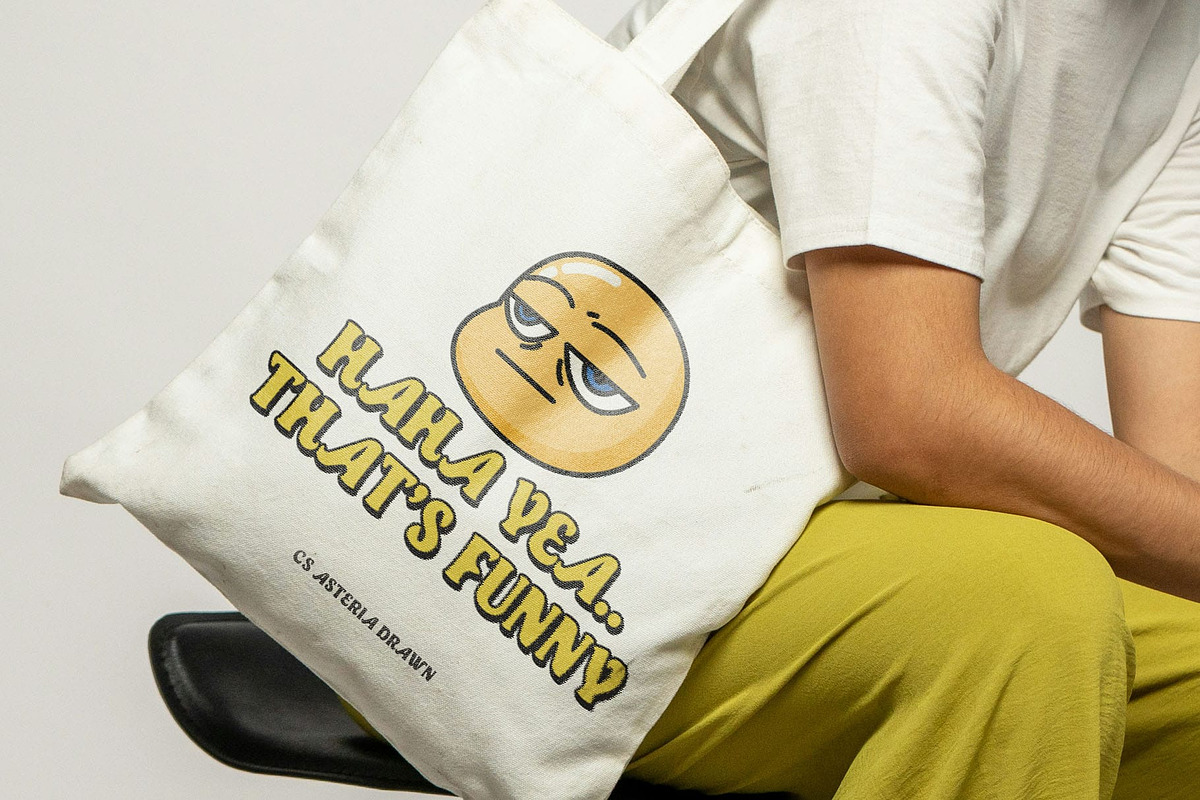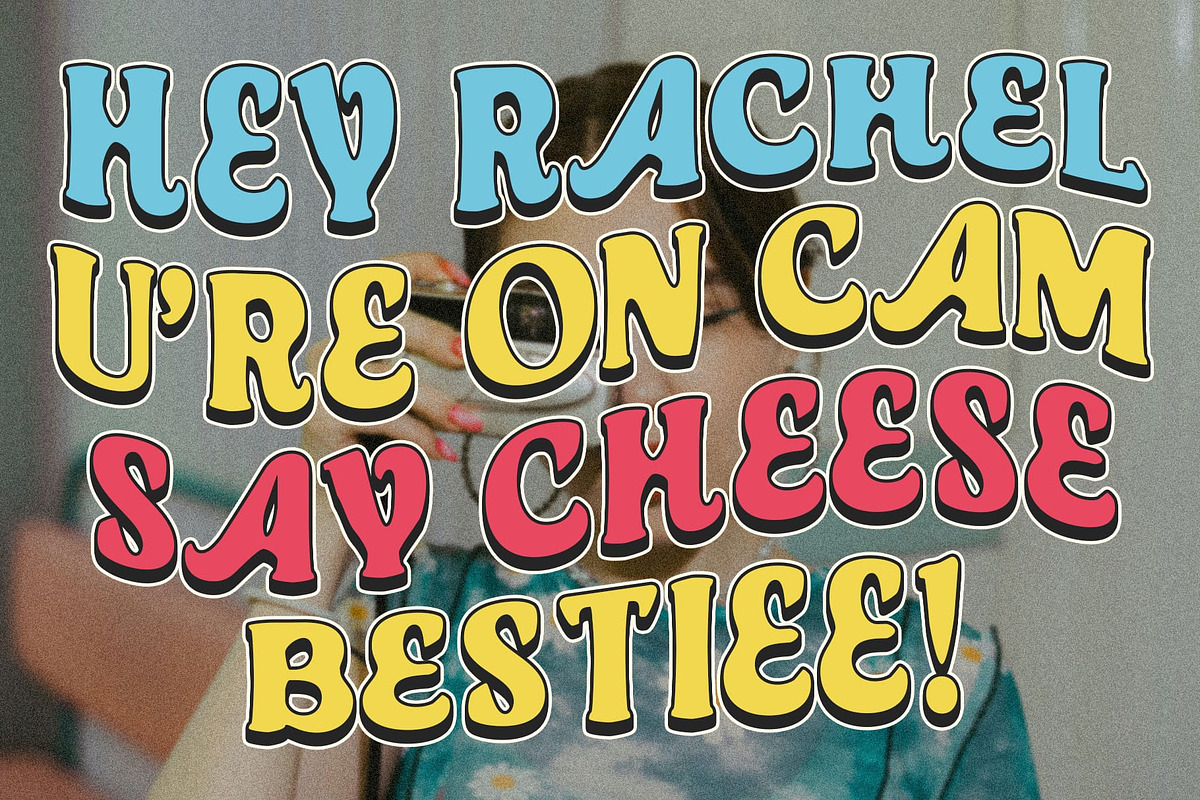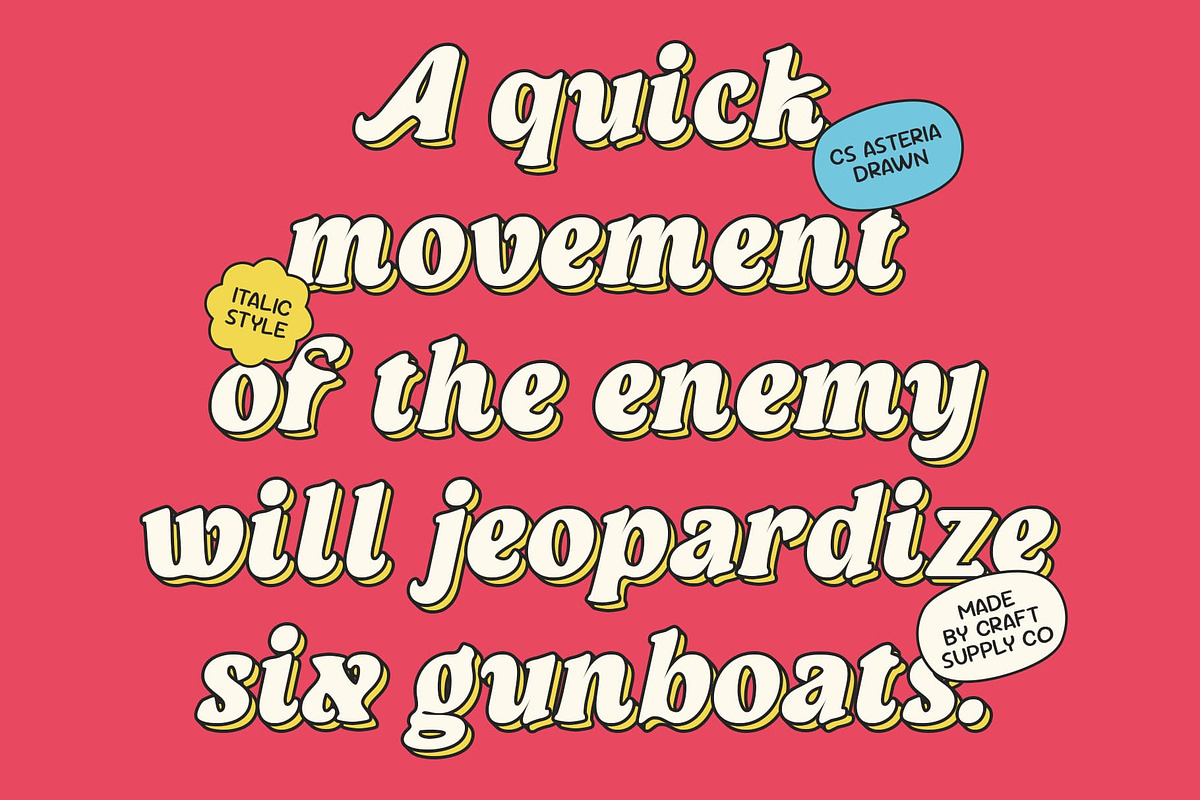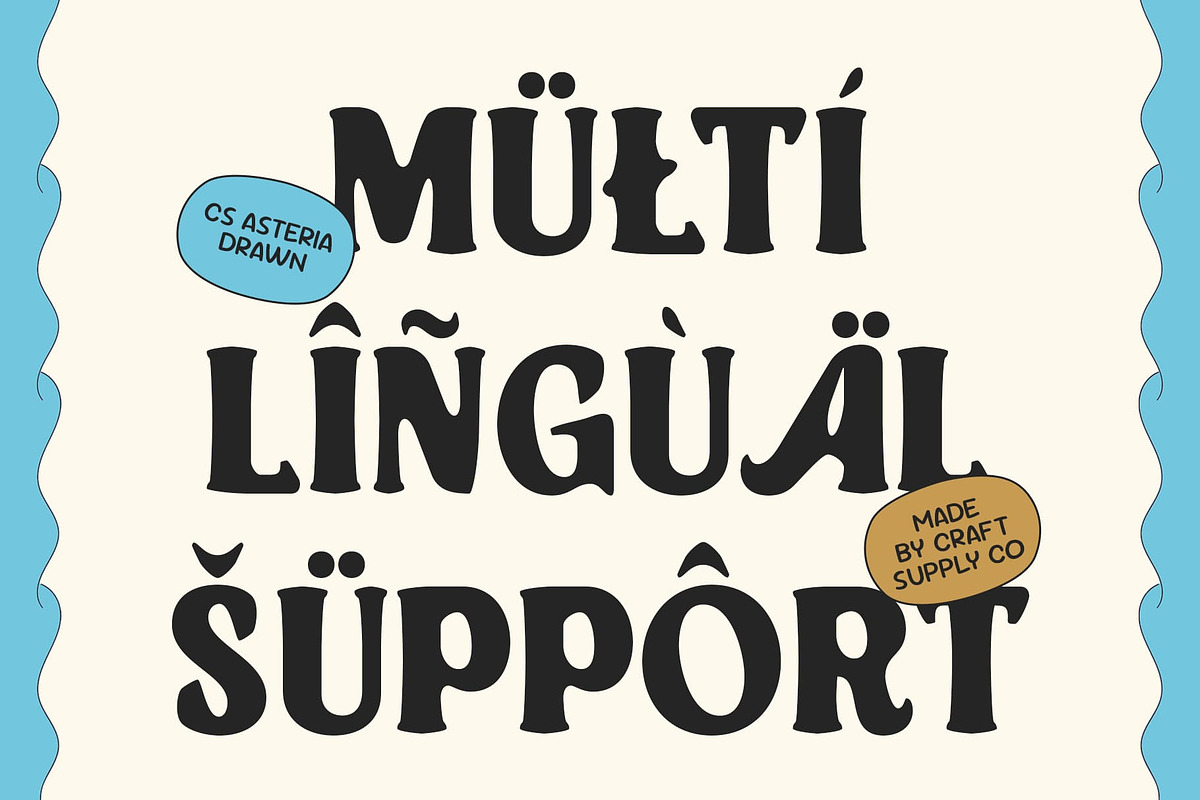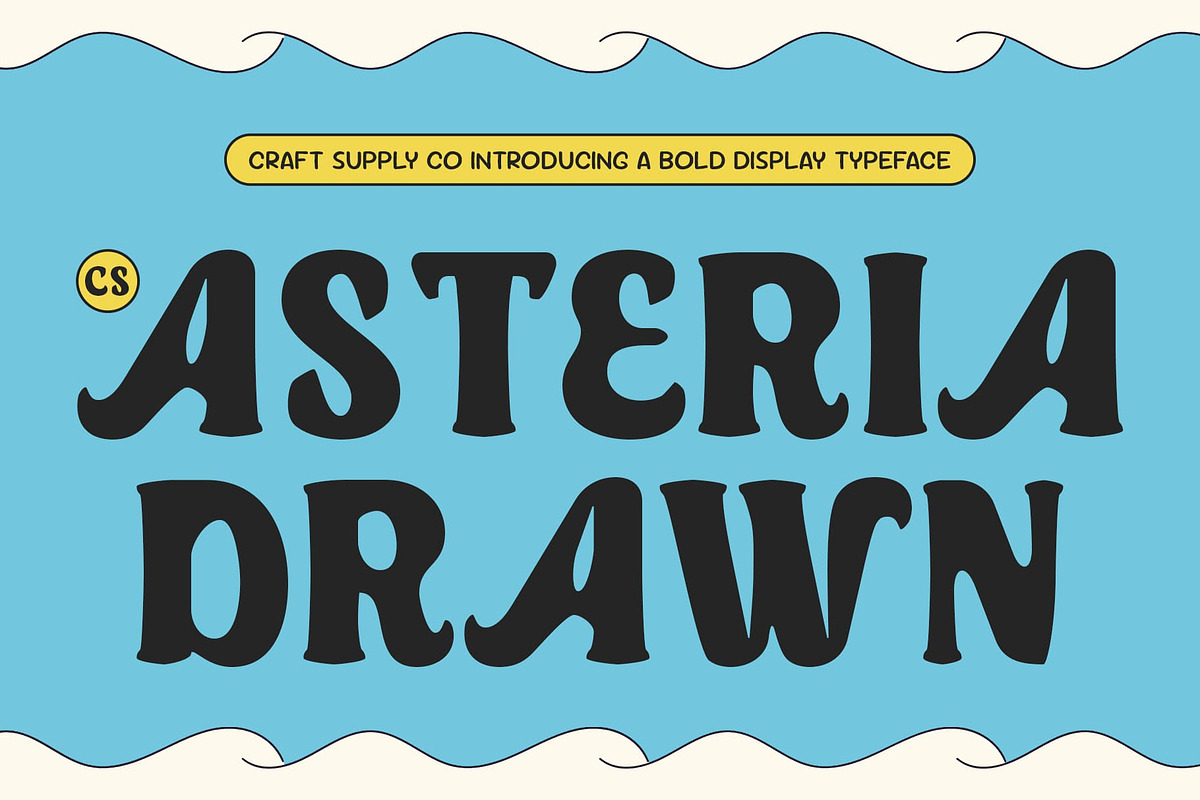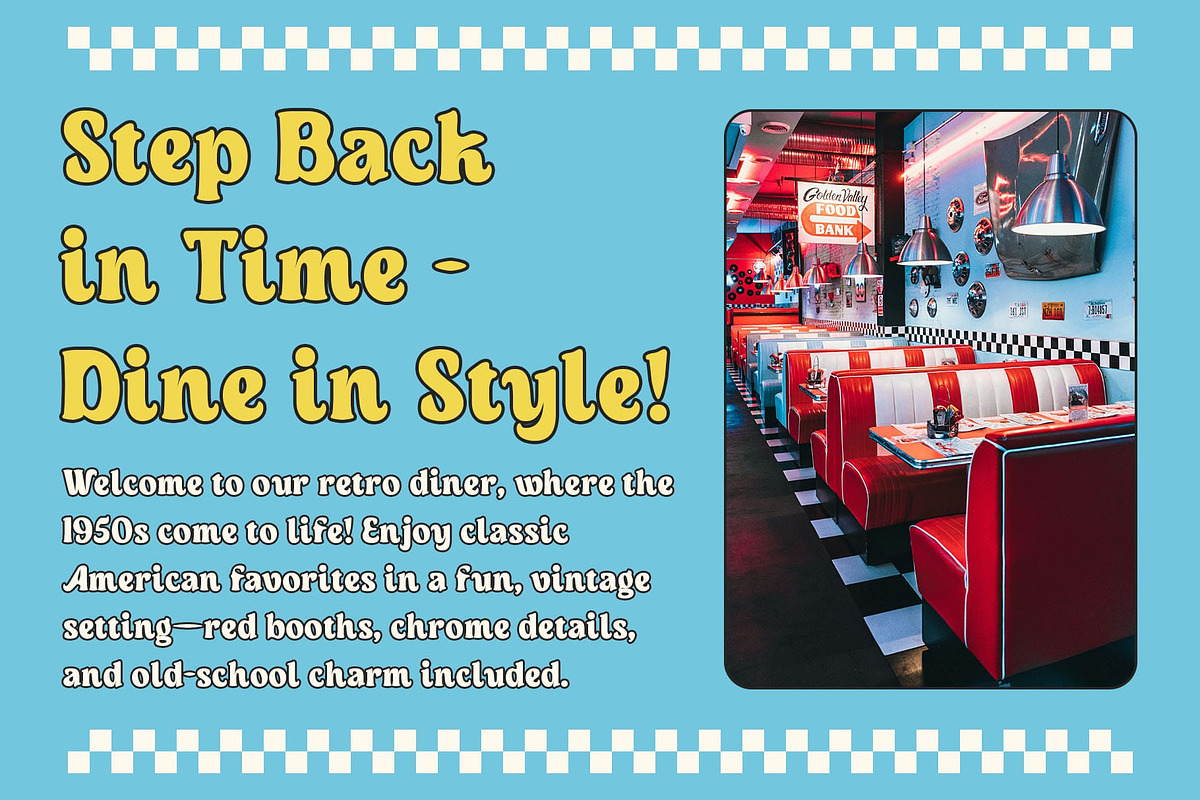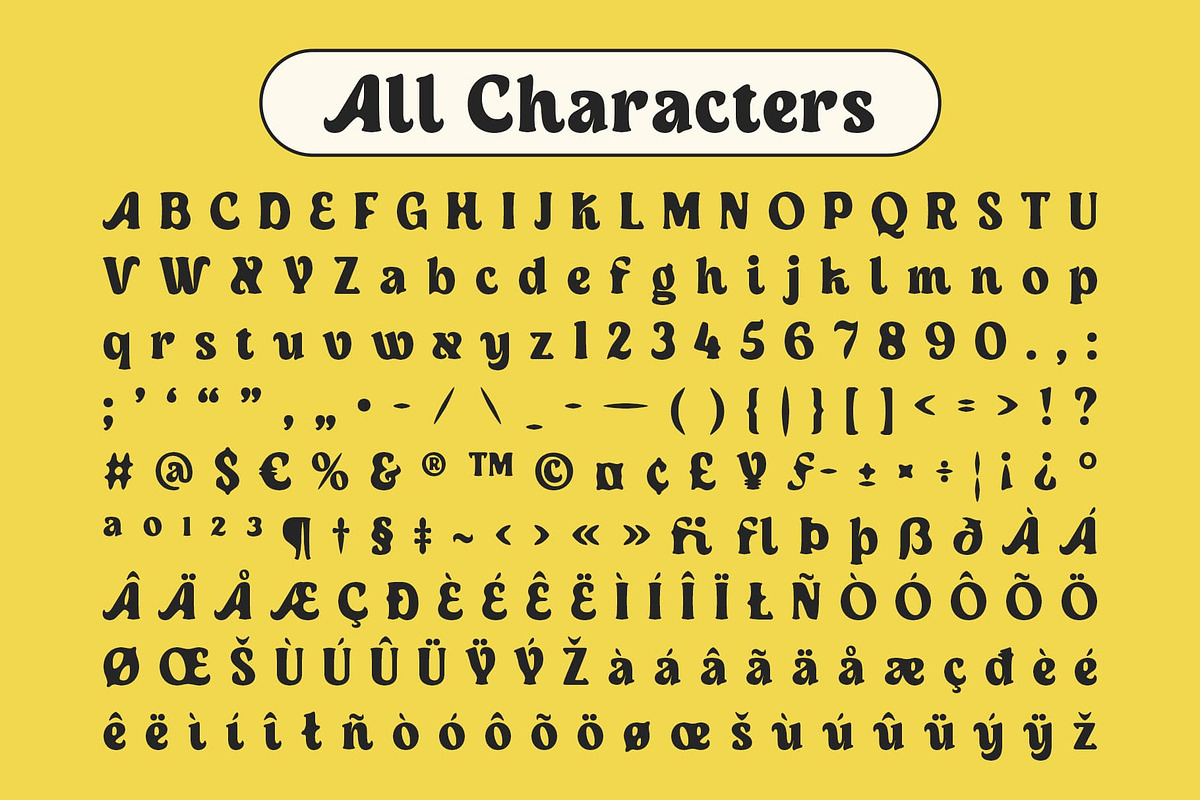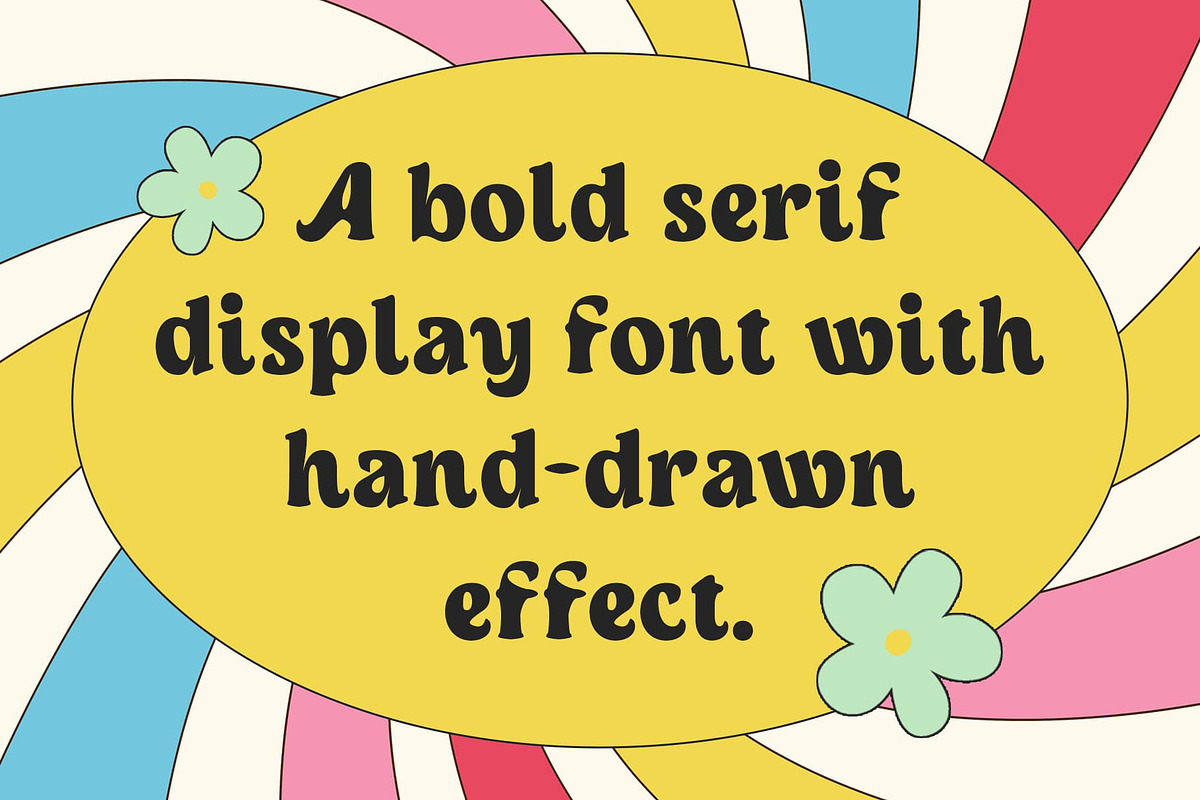
CS Asteria Drawn
CS Asteria Drawn – Bold Serif with Retro Funk
Bold Structure with Classic Elegance This features a bold display serif structure that carries the timeless elegance of classic typography. Its strong letterforms are designed to convey confidence and sophistication, offering a solid foundation for standout visual communication.
Funky Retro Vibe Inspired by the ’90s Infused with a funky retro spirit, this iconic font echoes the bold, expressive aesthetic of the 1990s. The nostalgic vibe gives your designs a playful and vibrant energy, perfect for projects that aim to blend old-school charm with modern flair. Evoking the charm of the 1990s, this font brings a funky, playful retro aesthetic to your designs. The stylistic curves and expressive proportions inject personality and nostalgic flair, perfect for projects looking to bridge vintage spirit with contemporary energy.
Drawn Effect for Handcrafted Character The drawn effect adds an artisanal, handcrafted texture that softens the boldness and infuses the font with personality. This detail enhances its expressive quality, making it ideal for designs that emphasize creativity, uniqueness, and a personal touch.
Perfect for Distinctive and Creative Designs Whether you’re crafting eye-catching posters, music covers, or bold branding visuals, this classic font offers the expressive power and style to make your work stand out. It’s a font made for projects that value originality, bold character, and retro flair.